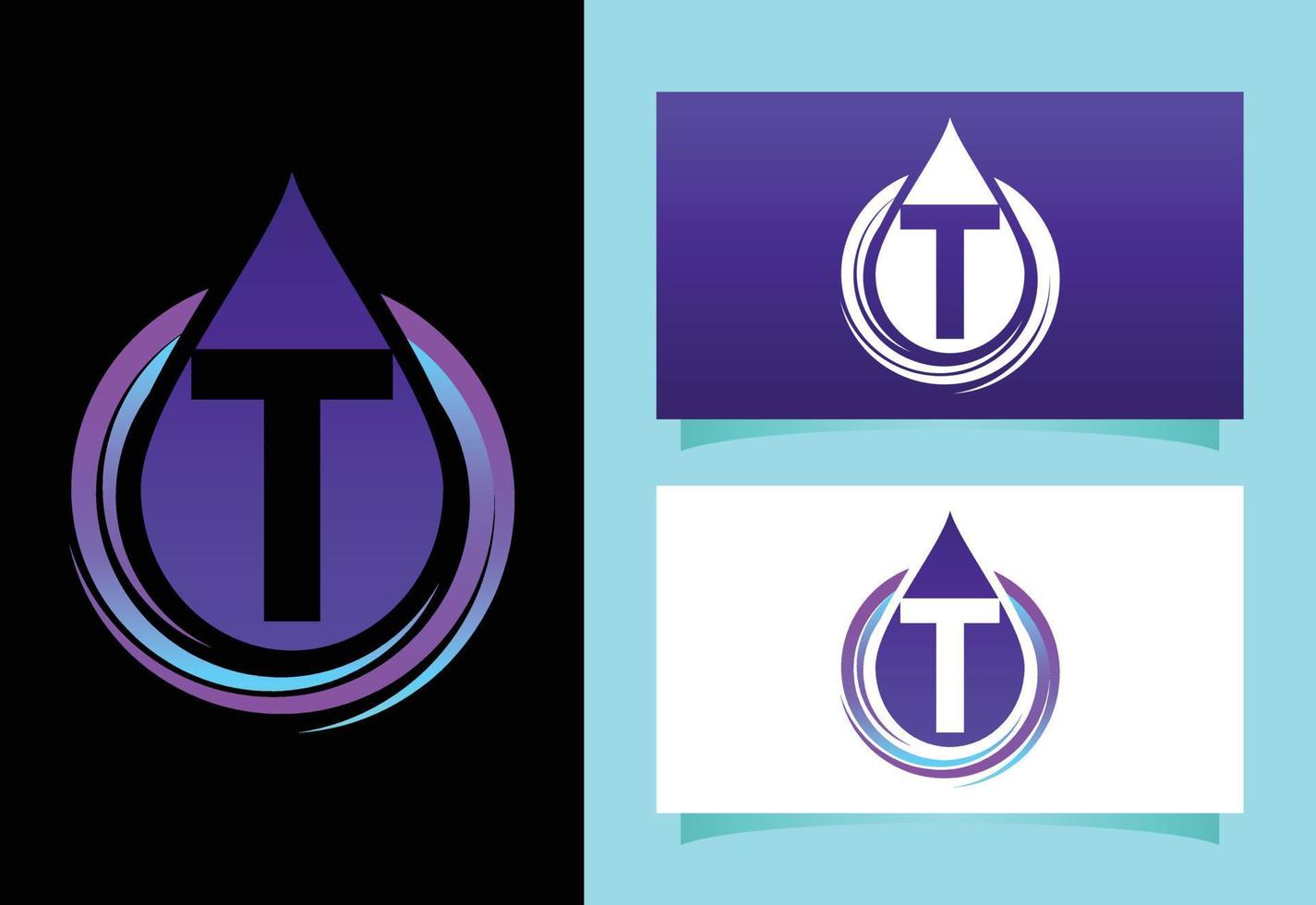
Initial T monogram alphabet with water drop in a spiral. Waterdrop logo design vector template. Font emblem. Modern vector logo for business and company identity